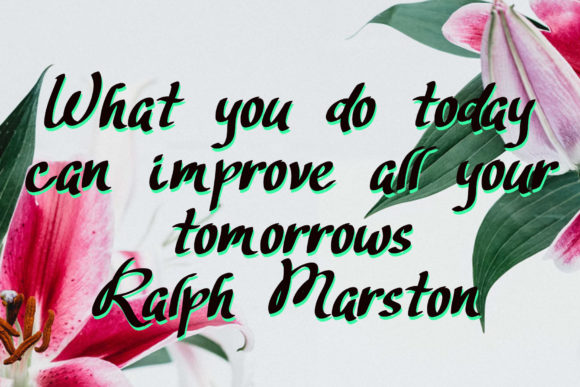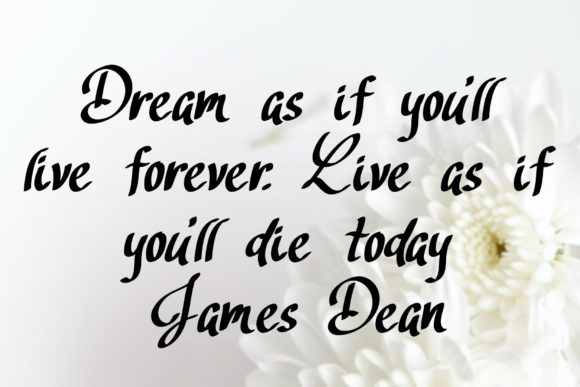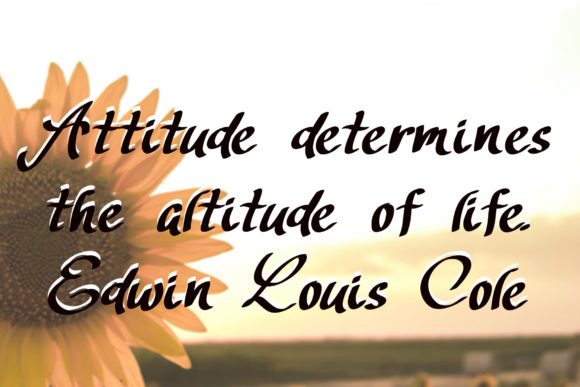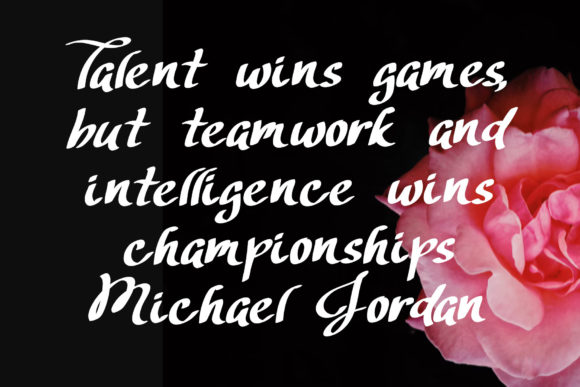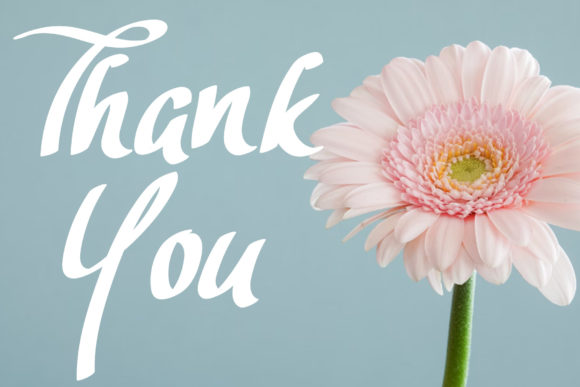
Welcome to Hello February: The Simple Script Font for Stunning Designs
As a designer or crafter, you’re constantly on the lookout for the perfect font to elevate your projects. You’re in luck because Hello February is here to take your designs to the next level. This simple script font is a game-changer for creating eye-catching logos, branding, and quotes that will leave a lasting impression.
The Beauty of Hello February
Hello February was designed with one goal in mind: to enhance the beauty of your projects. With its elegant and flowing script, this font is perfect for adding a touch of sophistication to any design. Whether you’re working on a logo, branding materials, or a quote, Hello February is the ideal choice.
What Makes Hello February Special?
So, what sets Hello February apart from other fonts? Here are just a few reasons why this font is a must-have for designers and crafters:
- Simple yet Elegant: Hello February’s simple script design makes it easy to read and understand, while its elegant curves add a touch of sophistication.
- Versatile: This font is perfect for a wide range of projects, from logos and branding to quotes and social media graphics.
- Easy to Use: Hello February is a straightforward font to use, even for those who are new to design.
- High-Quality: This font is designed to produce high-quality results, ensuring that your projects look professional and polished.
Hello February is a font that’s designed with designers and crafters in mind. Whether you’re a seasoned pro or just starting out, this font is easy to use and produces stunning results. Here are just a few ways you can use Hello February:
- Logos: Create a memorable logo for your business or brand with Hello February.
- Branding: Use this font to create consistent branding across all your marketing materials.
- Quotes: Add a touch of elegance to your quotes and social media graphics with Hello February.
- Stationery: Use this font to create beautiful stationery, including invitations, cards, and letters.
Tips for Using Hello February
To get the most out of Hello February, here are a few tips to keep in mind:
- Experiment with Sizes: Don’t be afraid to experiment with different font sizes to find the perfect fit for your project.
- Play with Colors: Try out different colors to see what works best with Hello February.
- Mix and Match: Combine Hello February with other fonts to create a unique look.
| Font Name | Hello February Font |
| Author | La Rosna |
Hello February is a simple script font that’s perfect for designers and crafters who want to create stunning designs. With its elegant curves and versatile design, this font is ideal for a wide range of projects. Whether you’re working on a logo, branding materials, or a quote, Hello February is the perfect choice. So why wait? Download Hello February today and take your designs to the next level!
- Simple script font
- Elegant and flowing design
- Perfect for logos, branding, and quotes
- Easy to use
- High-quality results